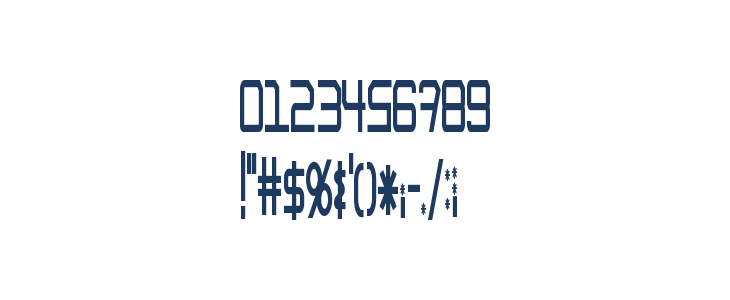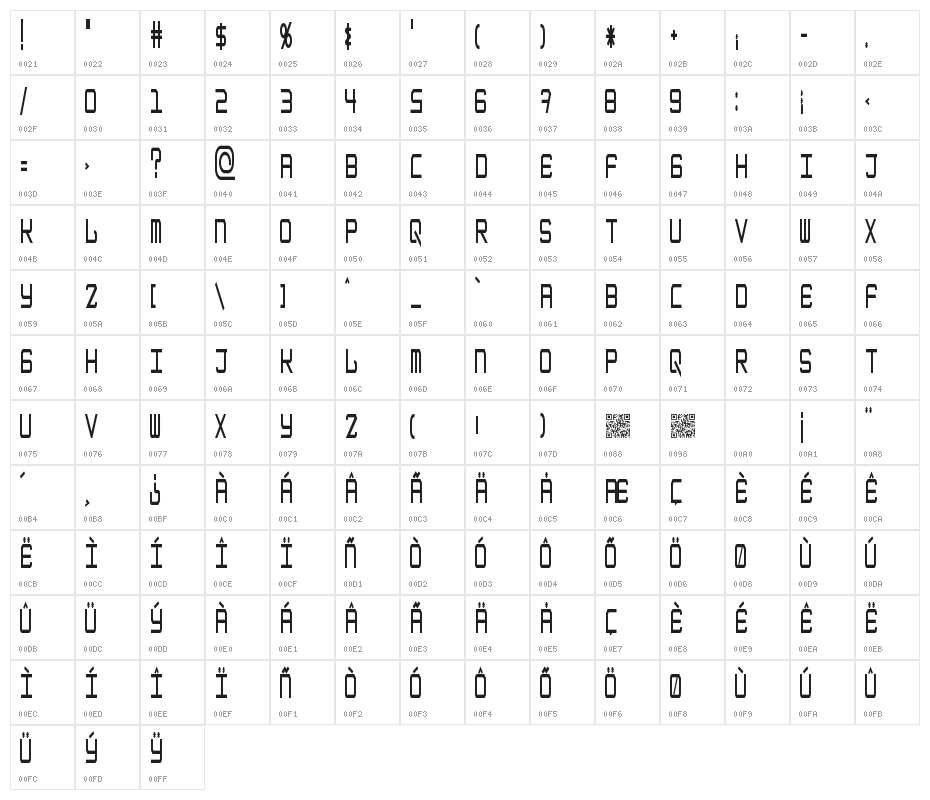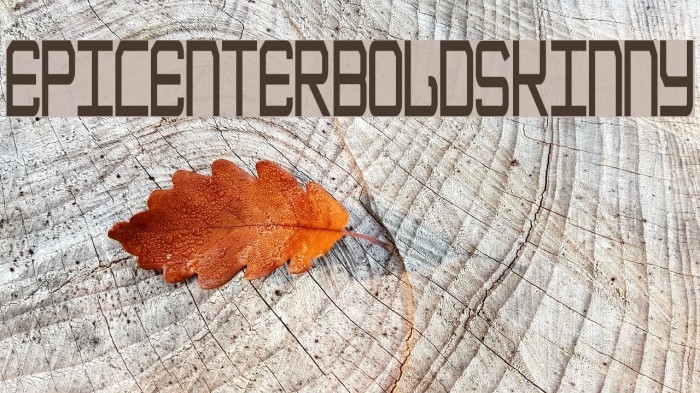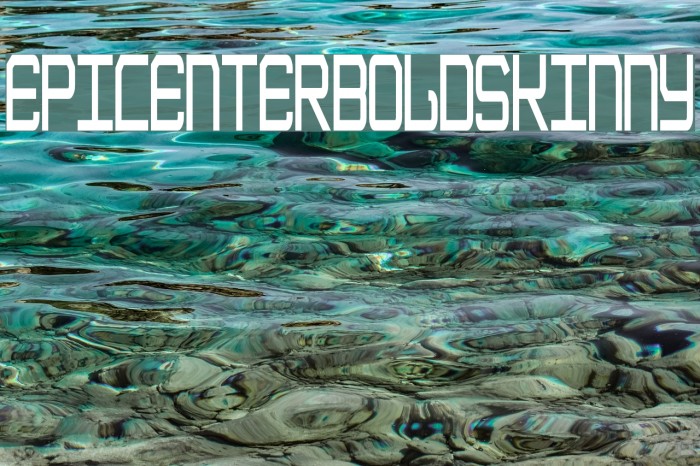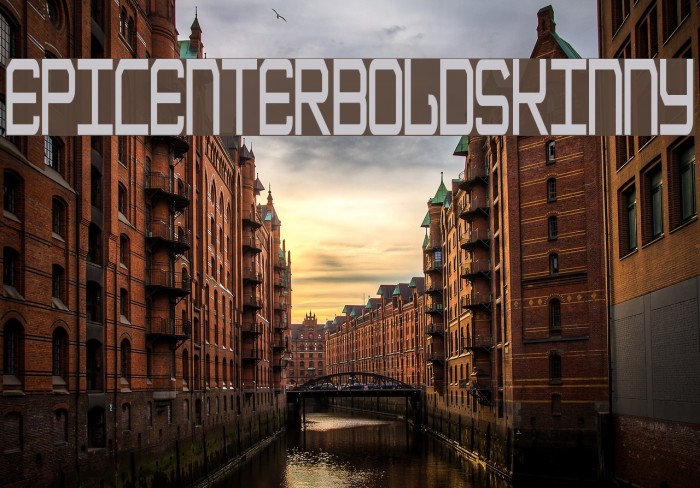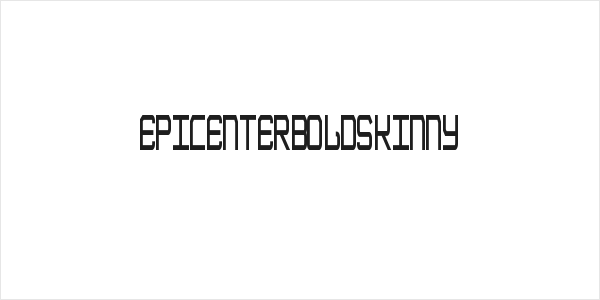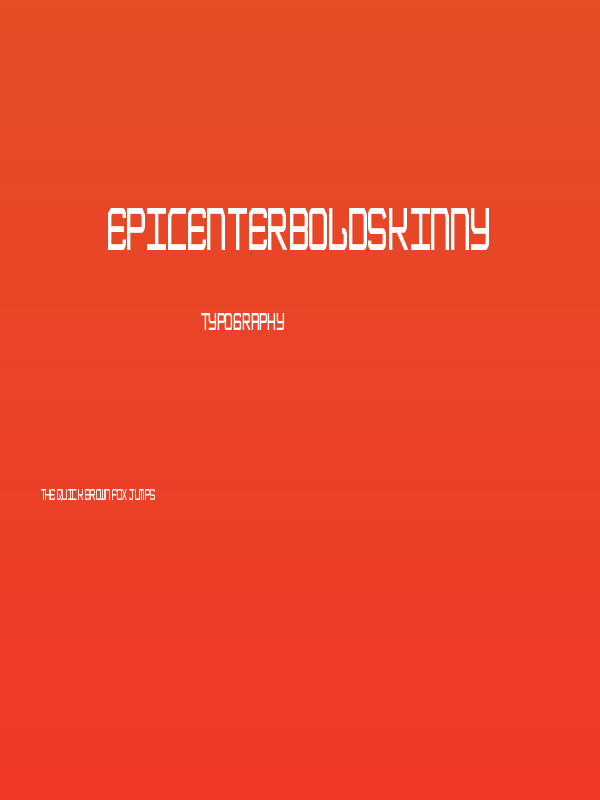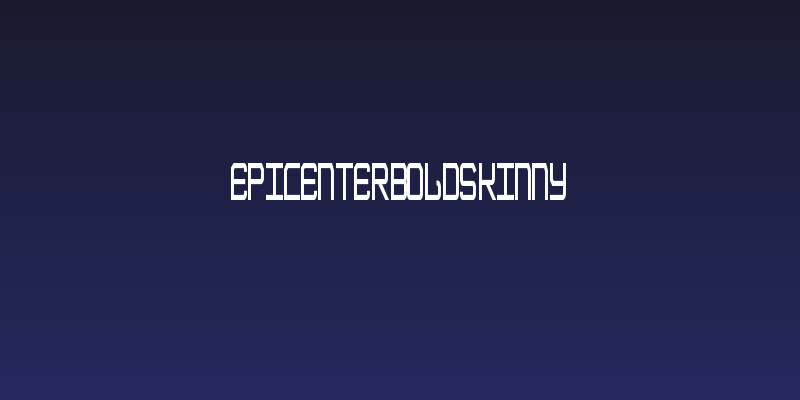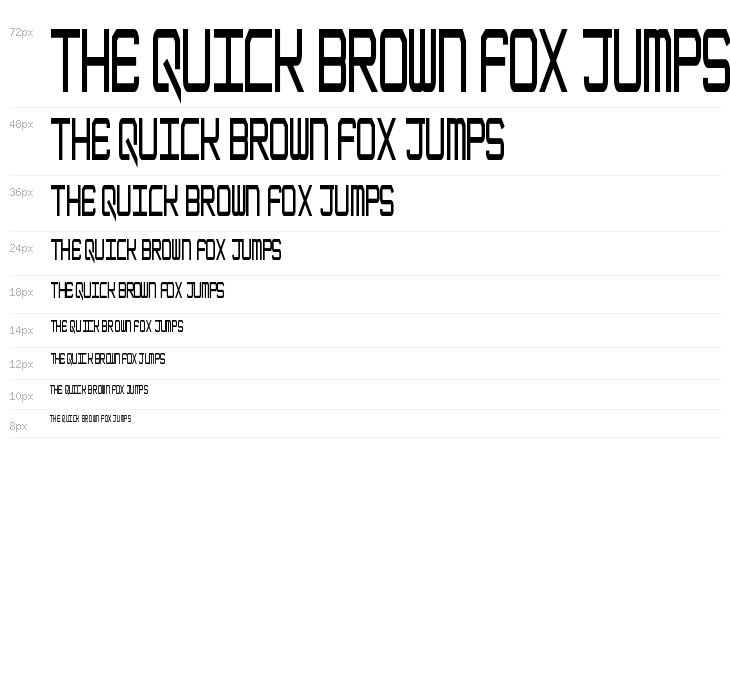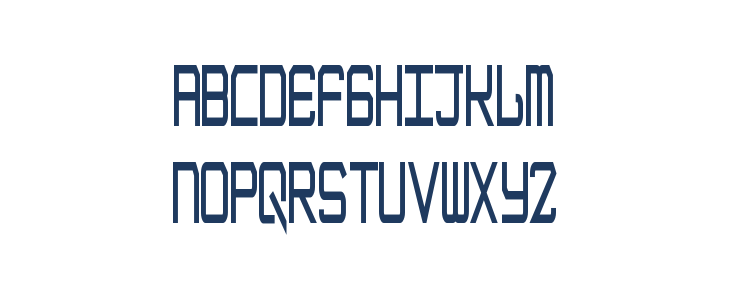
EpicenterBoldSkinny Font
EpicenterBoldSkinny Description
This font features a bold and geometric design with a modern and futuristic aesthetic. The characters are constructed with straight lines and sharp angles, giving them a distinct and edgy appearance. The uppercase letters are uniform in height, while the lowercase letters maintain a consistent style, enhancing readability. The numerals are equally bold, matching the overall style of the alphabet. Special characters are included, maintaining the same geometric and angular design. This font is ideal for projects that require a strong and impactful visual presence.